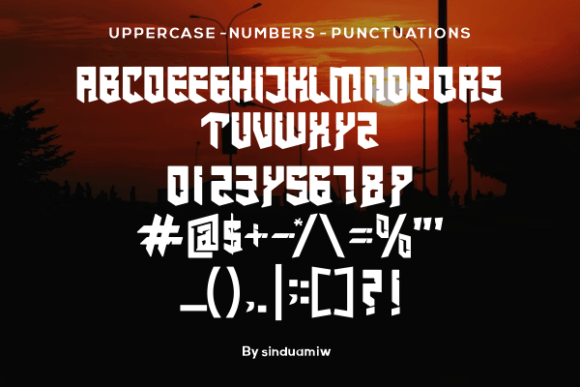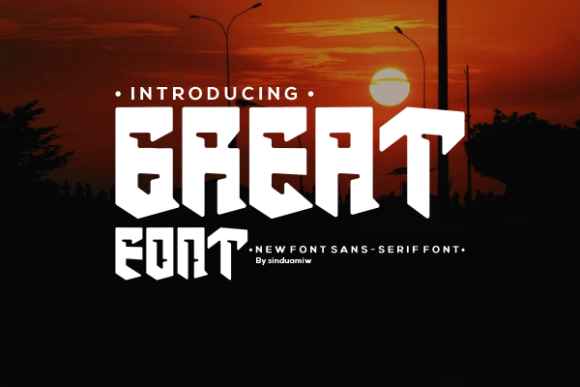
Chougi
Chougi: A Cool and Powerful Slab Serif Font
Chougi is a very cool, powerful, and unique slab serif font designed to make a statement in creative projects. This distinctive typeface helps designers create beautiful and impactful designs.
Key Features of Chougi
• Cool Design: Offers fresh and appealing letterforms.
• Powerful Style: Creates strong visual impact.
• Unique Character: Brings distinctive personality to designs.
• Statement Making: Perfect for attention-grabbing typography.
Best Uses for Chougi
Thanks to its powerful characteristics, Chougi works especially well for:
When using Chougi in your designs, keep these tips in mind:
• Try it for headlines or display text to showcase its powerful style.
• Use different sizes to highlight its cool features.
• Let its unique character make strong statements.
• Take advantage of its distinctive appeal for creative projects.
To sum up, Chougi is an excellent choice for designers seeking a cool and powerful slab serif font. Its unique characteristics make it perfect for projects that need to make a statement. Whether you’re creating bold headlines or developing artistic designs, Chougi offers the perfect blend of coolness and impact.
Furthermore, Chougi’s distinctive design allows it to shine in contexts where both power and creativity are key. For instance, from display typography to creative projects, this font can elevate your work with its unique style. Also, its cool yet powerful appearance works particularly well in designs that aim to make a bold statement.
In conclusion, Chougi truly captures the essence of powerful design in slab serif typography. Its ability to enhance creative projects shows how well it can serve various design needs. Therefore, for those wanting to add a touch of cool sophistication to their work, Chougi can transform any design with its distinctive style. Ultimately, it’s perfect for designers aiming to make beautiful, powerful statements across creative projects.